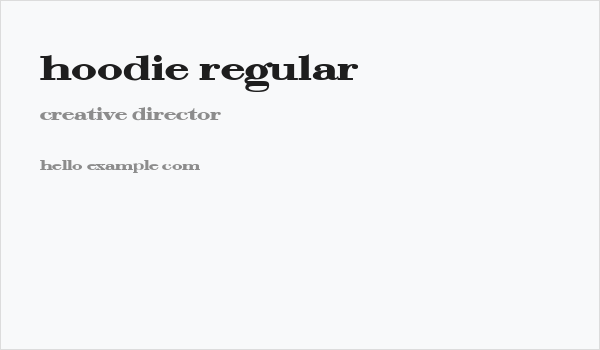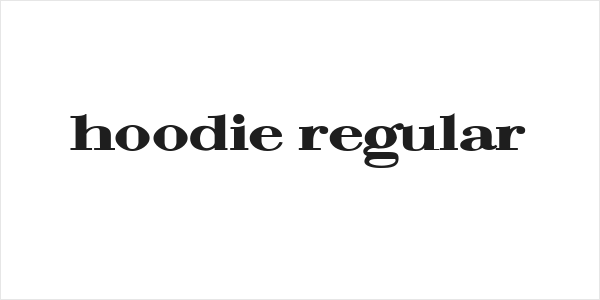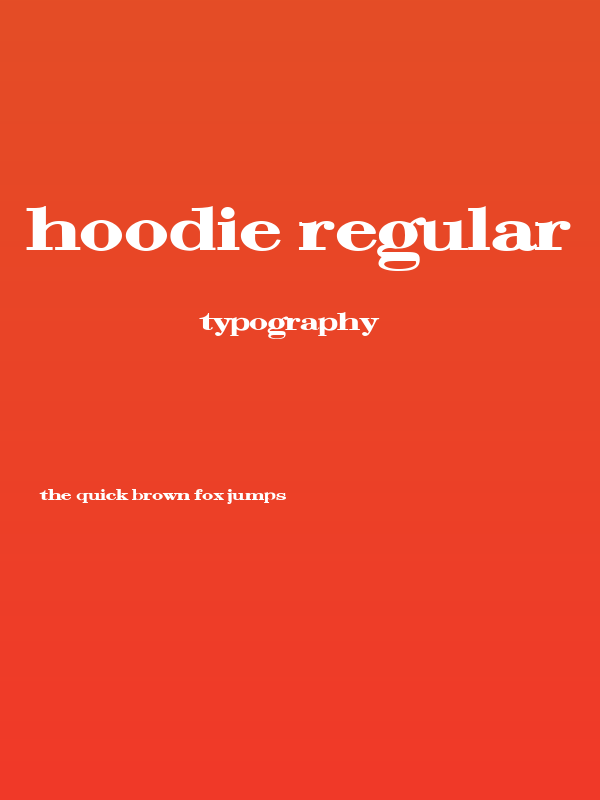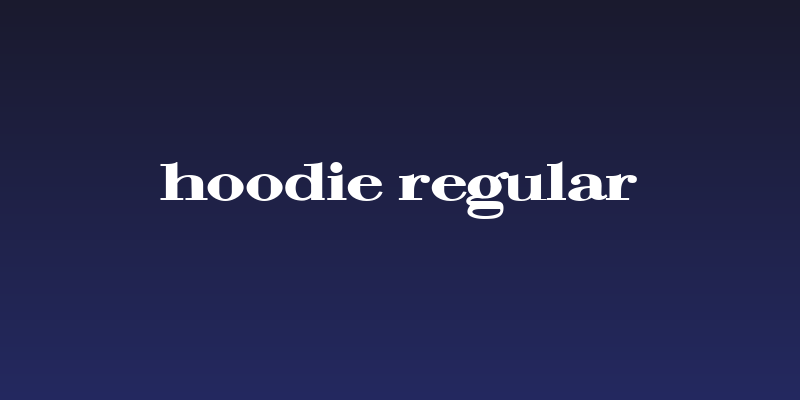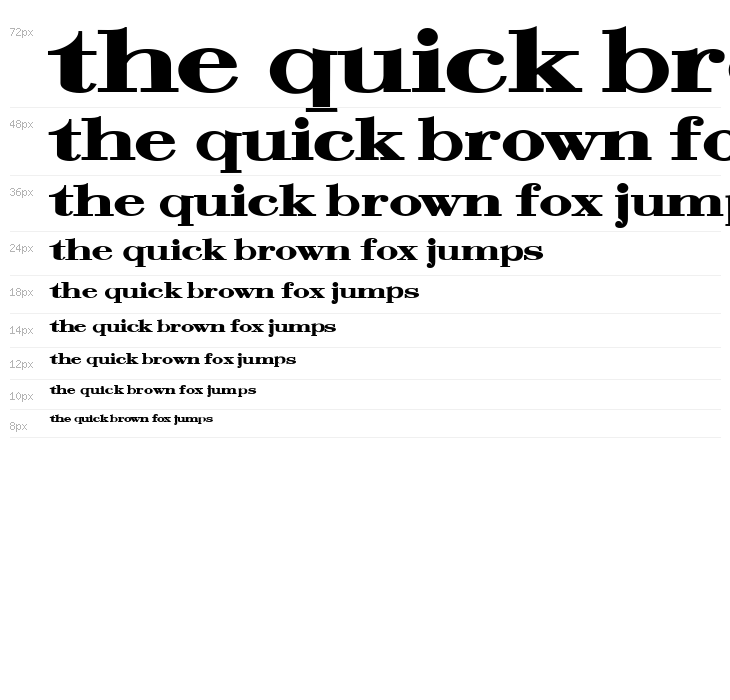
Hoodie Regular Font
Hoodie Regular Description
This font exhibits a bold and confident serif style, characterized by its thick strokes and pronounced serifs. The letters have a strong presence, with a slight curvature that adds a touch of elegance. The uppercase and lowercase letters maintain a consistent weight, ensuring readability and balance. The numerals are clear and distinct, matching the overall robust aesthetic. Special characters are designed with the same attention to detail, providing a cohesive look across all glyphs. This font's boldness makes it suitable for impactful designs where clarity and emphasis are required.
Overall StyleClassic